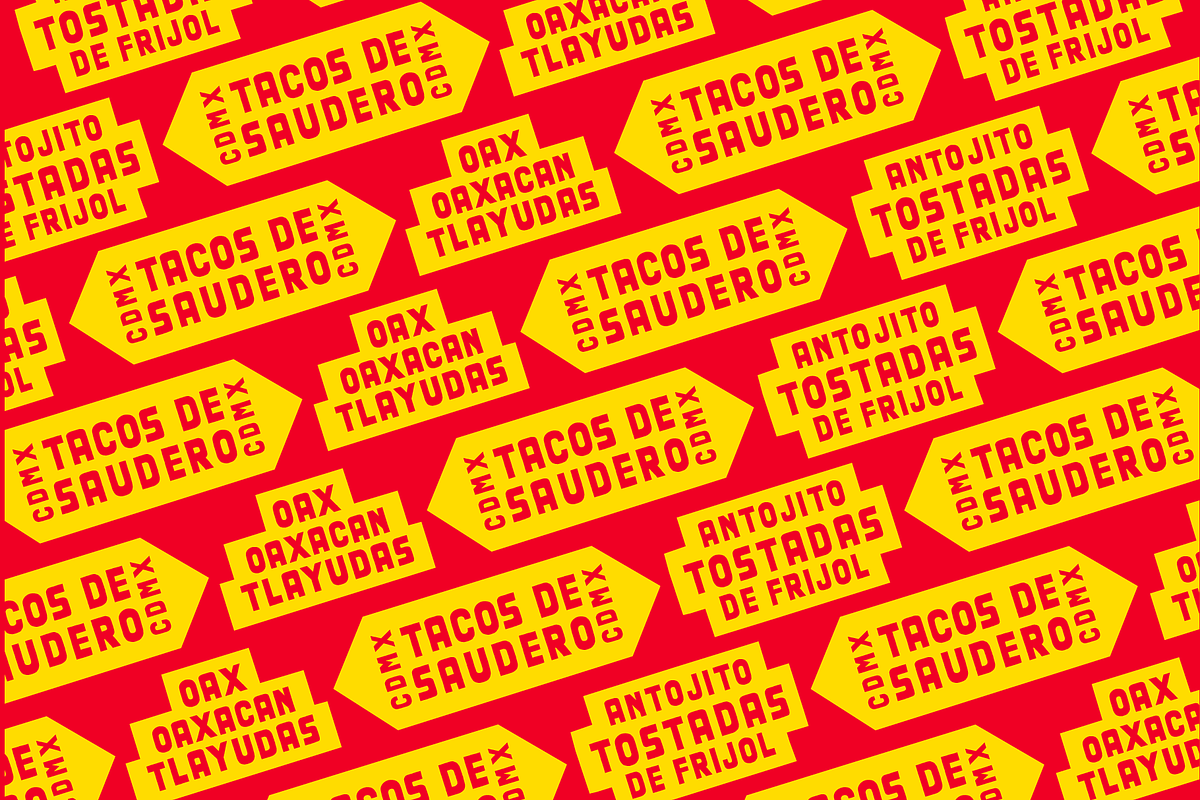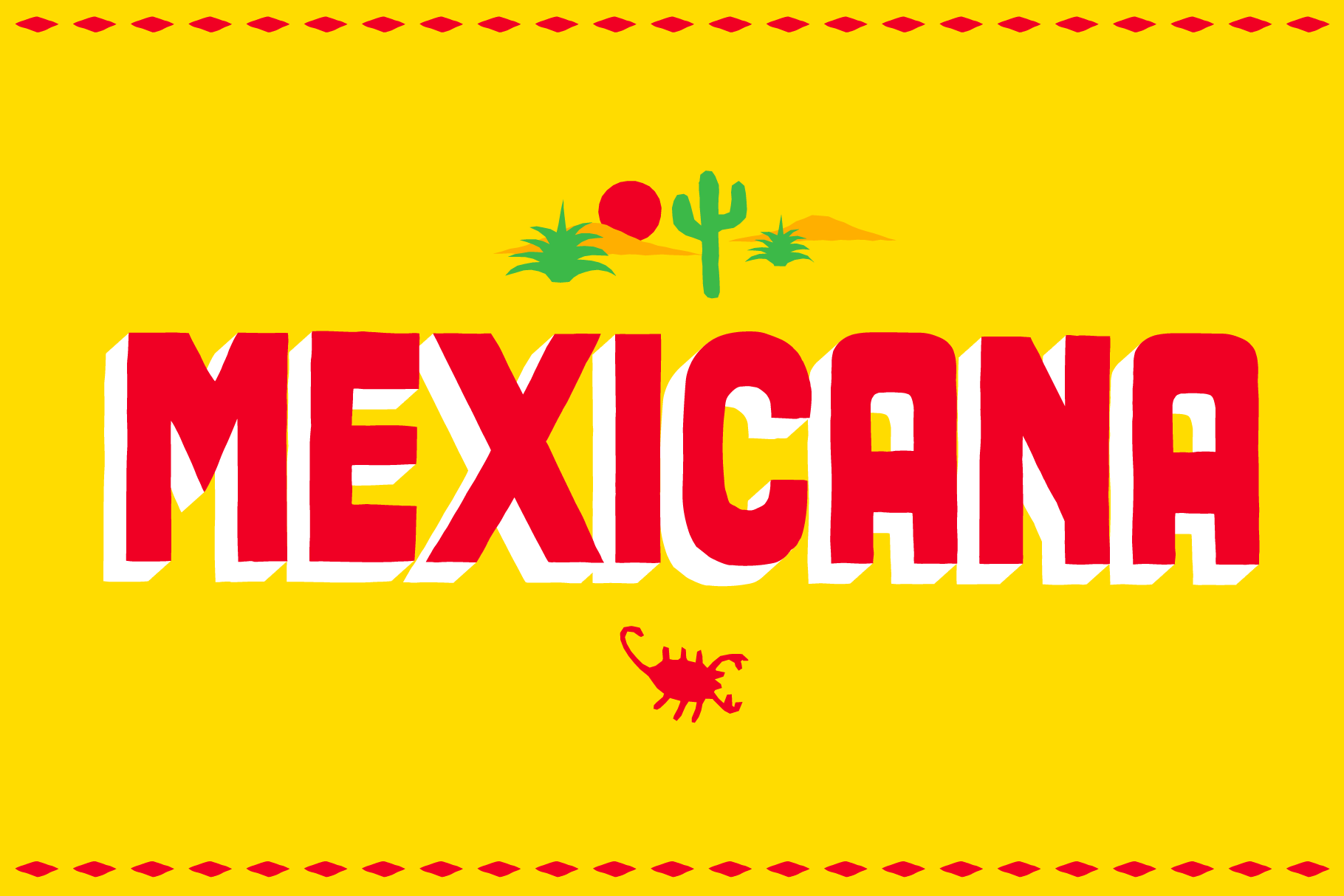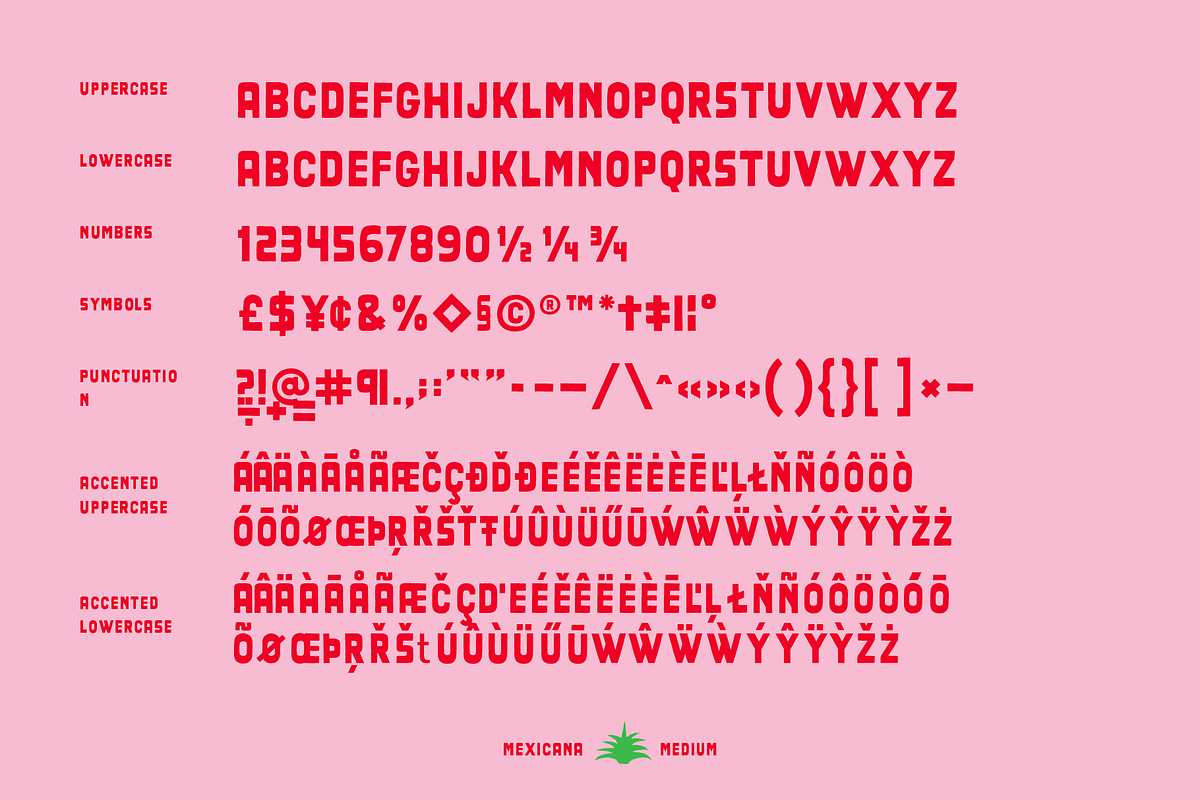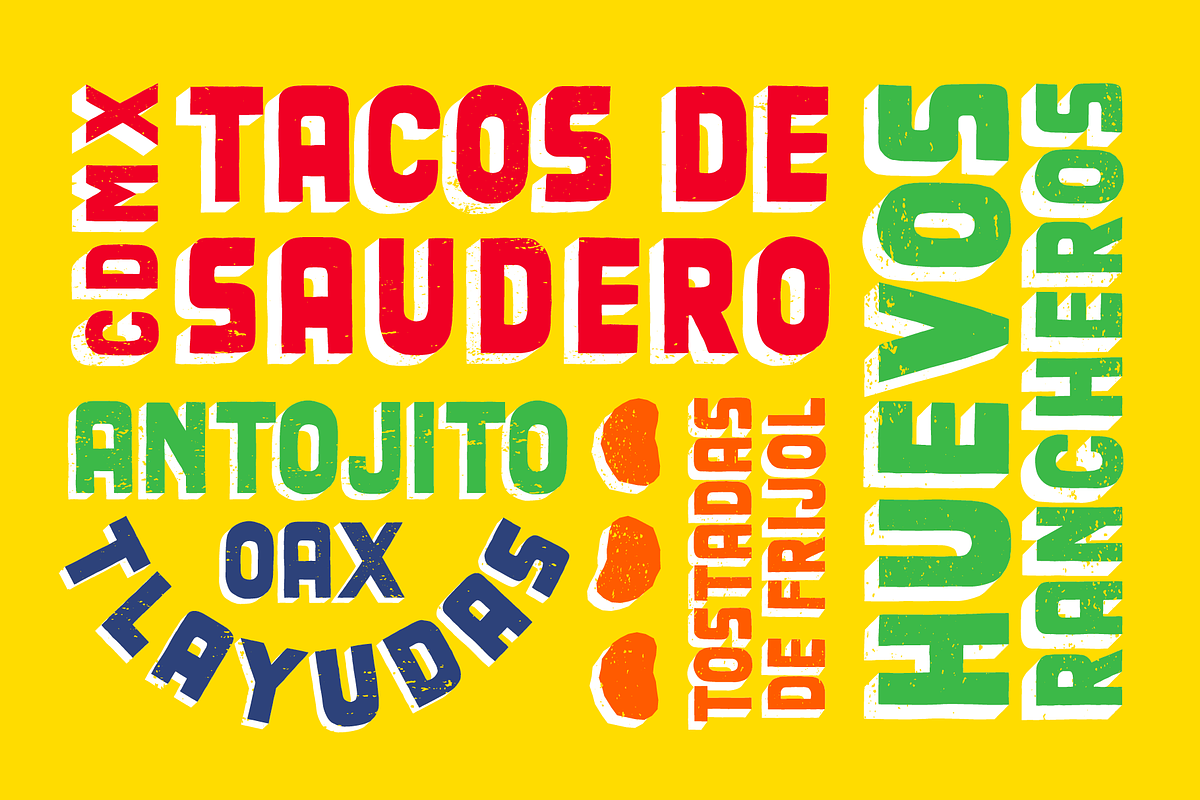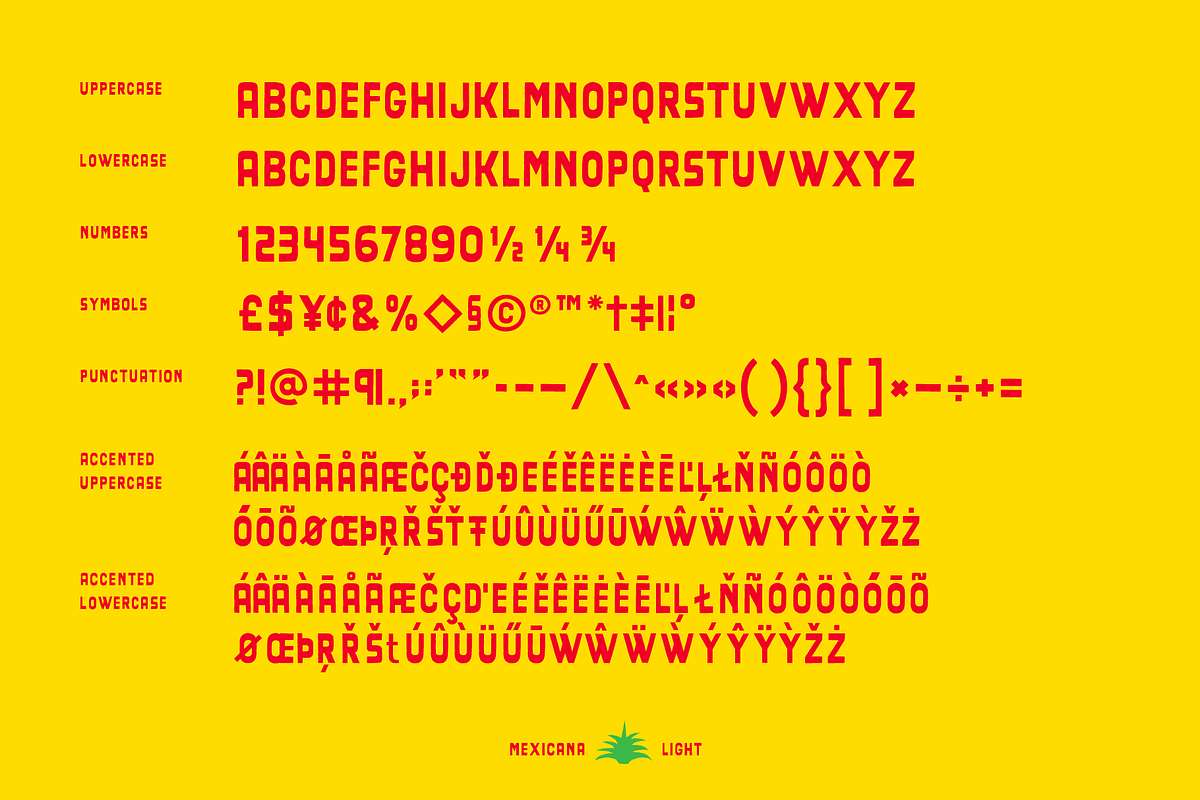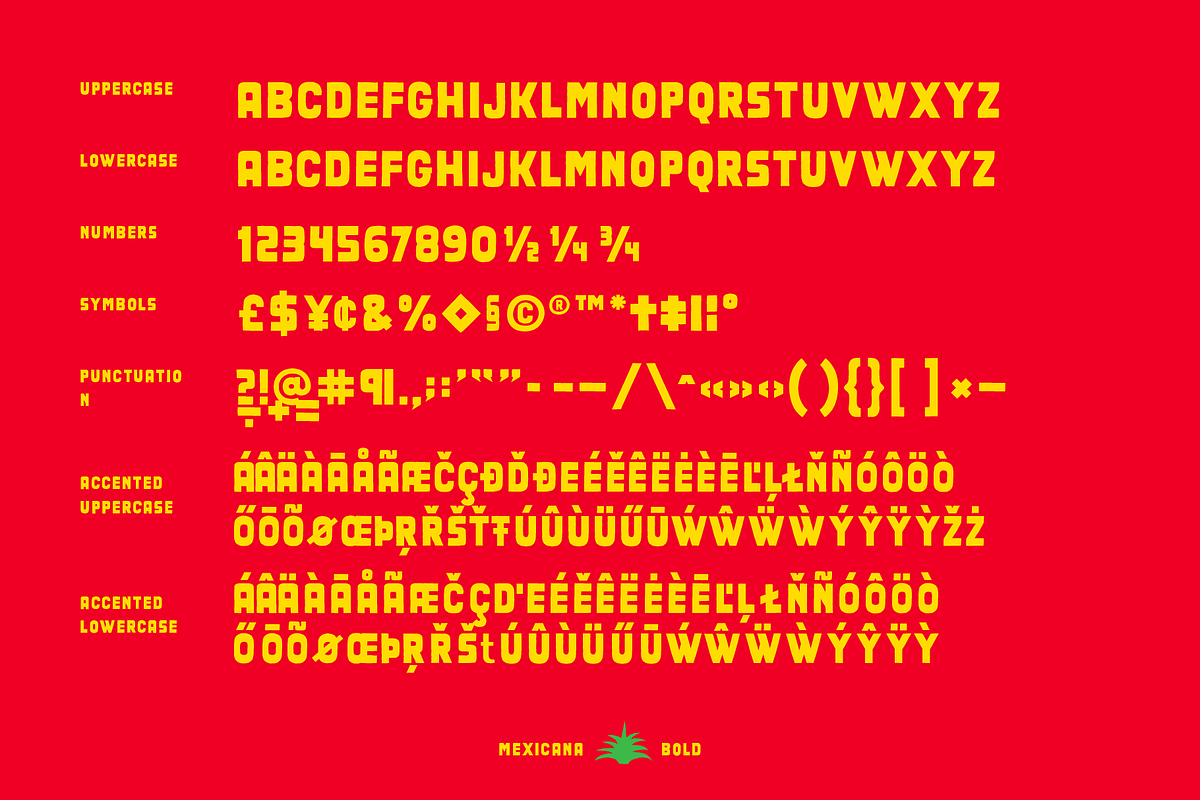
Mexicana Font Family
Mexicana font family is inspired by the rustic landscape and charming colonial towns of Mexico. The varied width of the strokes and stems of these letterforms creates a pleasing mismatch which is a nod to the uneven nature of the Mexican architecture.